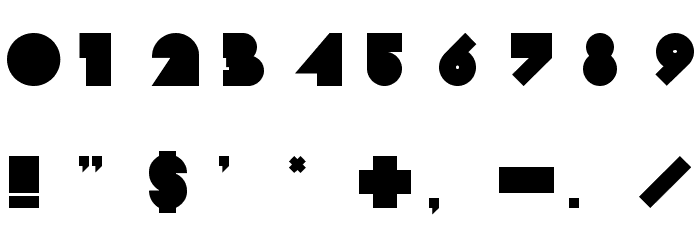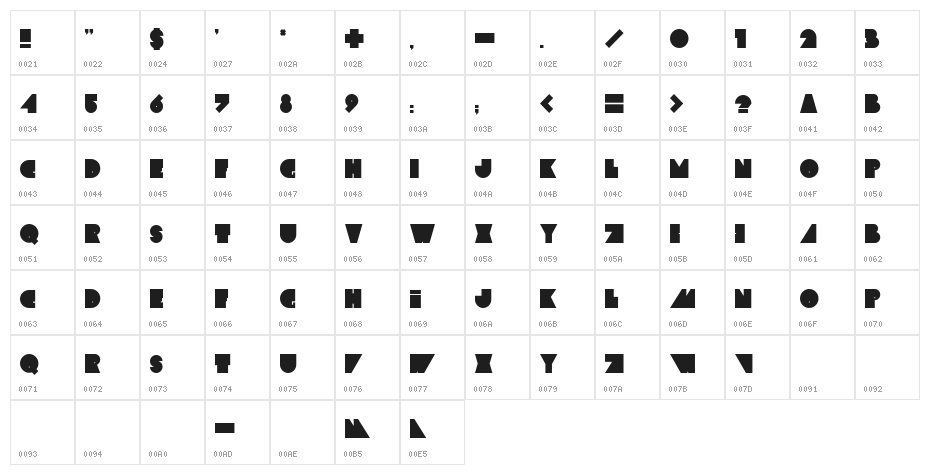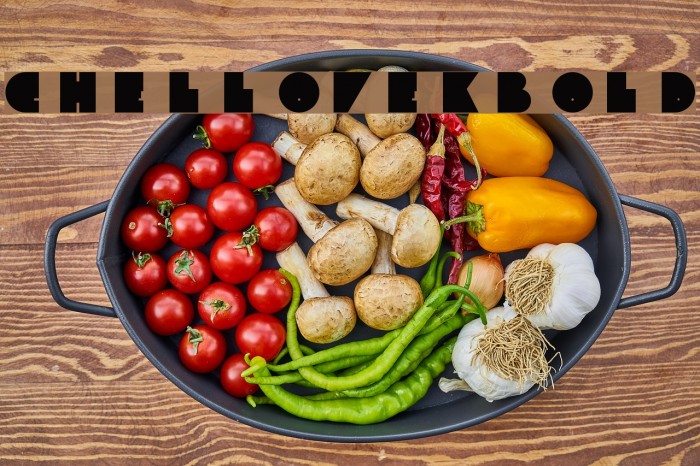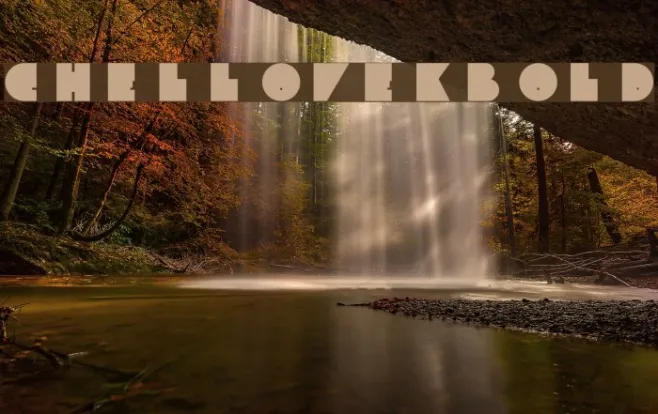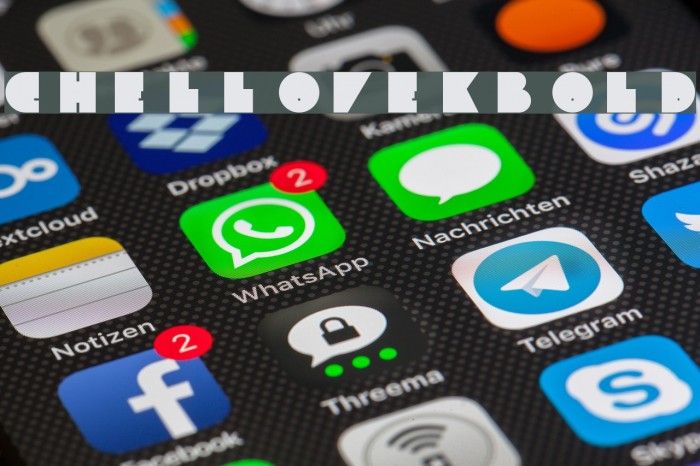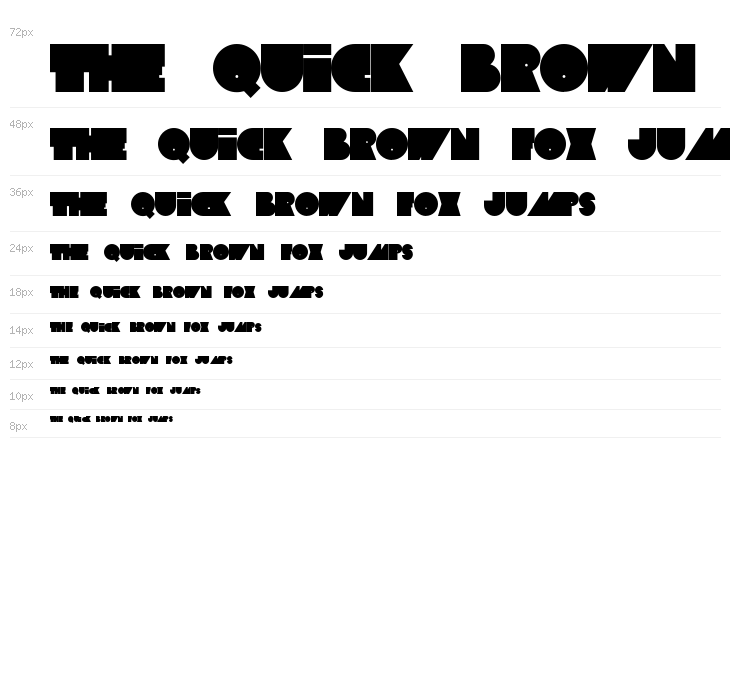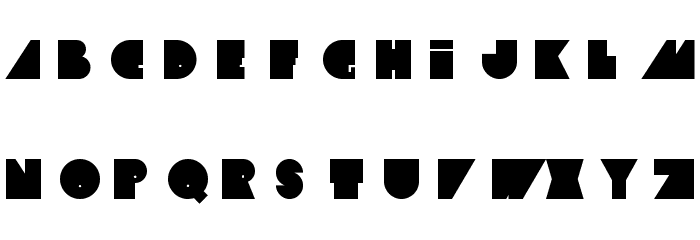
ChellovekBold Font
ChellovekBold Description
This font features a bold, geometric design with strong, angular shapes and a distinct, modern aesthetic. The uppercase and lowercase letters share a consistent style, characterized by sharp edges and a blocky appearance. The numbers and special characters maintain this geometric theme, providing a cohesive look across all characters. The font's boldness and unique design make it stand out, suitable for projects that require a strong visual impact.
| Proposed Projects | Ideal for posters, logos, branding, and headlines where a strong, modern look is desired. |